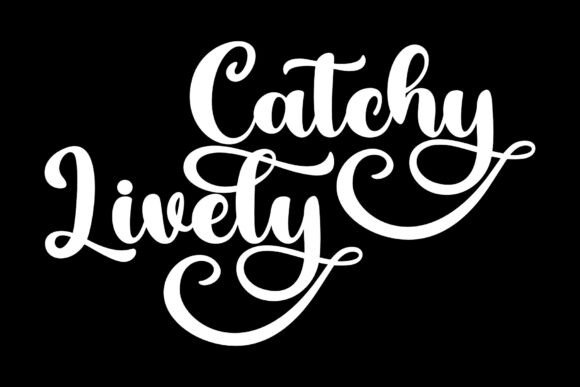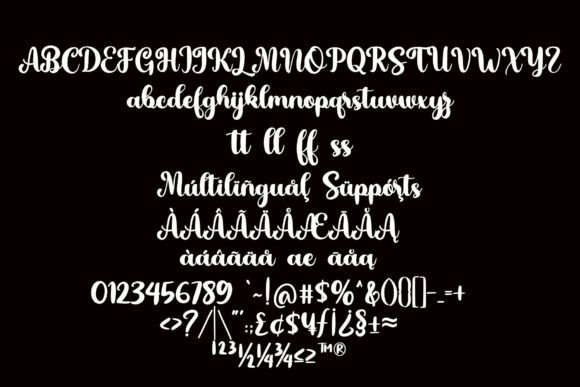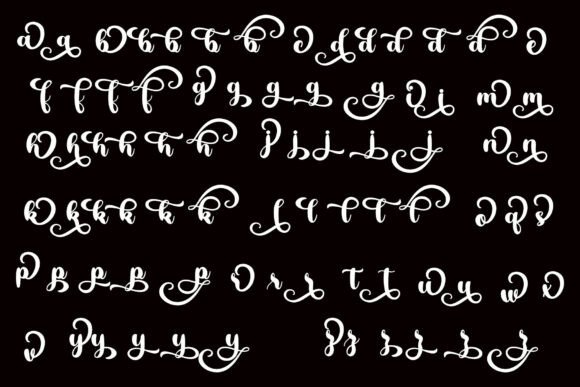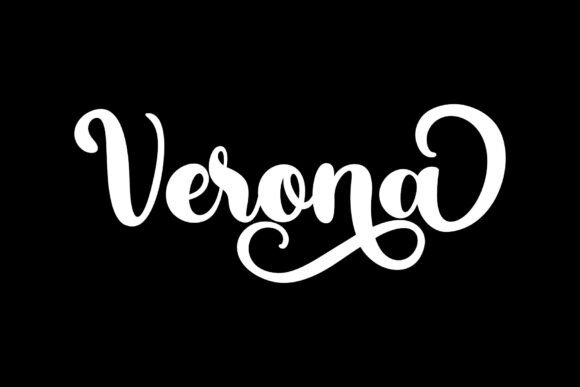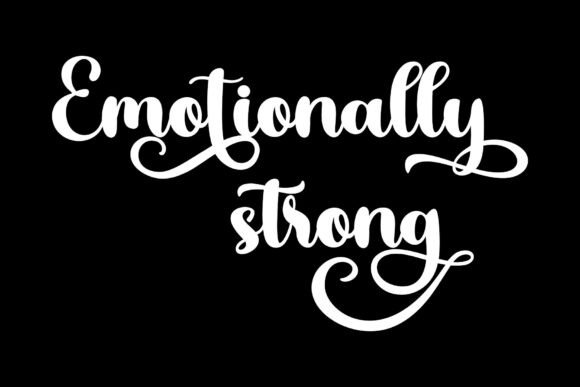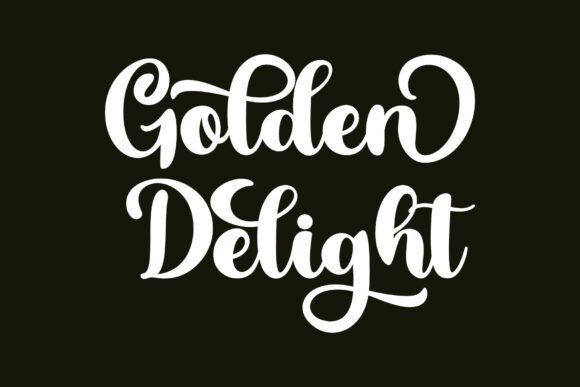
Catchy Lively Font: Elevate Your Designs with a Modern and Playful Twist
In the world of typography, fonts play a crucial role in conveying the tone and personality of a brand or design. If you’re looking for a font that exudes energy, liveliness, and a touch of playfulness, look no further than the Catchy Lively font. This modern and premium font design is perfect for creating eye-catching headlines, logos, and branding materials that demand attention.
The Unique Blend of Bold and Curvy Strokes
Catchy Lively font boasts a unique blend of bold and curvy strokes that set it apart from other font designs. The bold strokes provide a sense of confidence and strength, while the curvy strokes add a touch of playfulness and friendliness. This combination creates a font that is both modern and approachable, making it perfect for a wide range of design projects.
Perfect for Eye-Catching Headlines and Logos
Whether you’re designing a logo, headline, or branding material, Catchy Lively font is the perfect choice. Its bold and curvy strokes make it highly legible, even at large sizes, ensuring that your message gets across quickly and effectively. The font’s energetic and lively feel also makes it ideal for projects that require a dynamic and attention-grabbing approach.
Premium Font with Endless Design Possibilities
Catchy Lively font is a premium font design that offers endless possibilities for designers and crafters. Its versatility makes it suitable for a wide range of projects, from:
- Headlines and titles
Why Choose Catchy Lively Font?
So, why choose Catchy Lively font for your next design project? Here are just a few reasons:
- Unique and modern design: Catchy Lively font features a unique and modern design that will set your project apart from the rest.
- Highly legible: The font’s bold and curvy strokes make it highly legible, even at large sizes.
- Versatile: Catchy Lively font is suitable for a wide range of projects, from logos and branding materials to headlines and social media graphics.
- Premium quality: As a premium font design, Catchy Lively font is crafted with high-quality and attention to detail.
Tips for Using Catchy Lively Font
To get the most out of Catchy Lively font, here are a few tips:
- Use it as a statement piece: Catchy Lively font is designed to be attention-grabbing, so use it as a statement piece to draw attention to your message.
- Experiment with colors and textures: The font’s bold and curvy strokes make it perfect for experimenting with different colors and textures.
- Pair it with a neutral font: For body text, pair Catchy Lively font with a neutral font to create a balanced and harmonious design.
In conclusion, Catchy Lively font is a modern and playful font design that is perfect for designers and crafters looking to add a touch of energy and liveliness to their projects. Its unique blend of bold and curvy strokes makes it highly legible and attention-grabbing, while its versatility makes it suitable for a wide range of design projects. Whether you’re designing a logo, headline, or branding material, Catchy Lively font is the perfect choice.